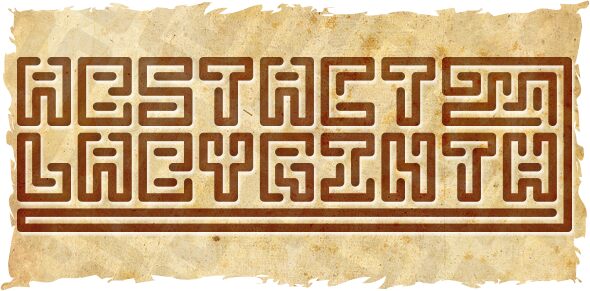
Abstract Labyrinth Rounded is a free techno display font that turns broad, rounded letters into continuous maze-like paths. Tight internal gaps give every form a circuit-board logic.
It is strongest on game titles, electronic music posters, and futuristic event graphics, where the dense linear pattern can supply both lettering and ornament. For merchandise and technology branding, the paths can connect visually with circuit diagrams, maps, or geometric patterns, making the type part of the surrounding artwork rather than a separate caption.
Abstract Labyrinth Rounded